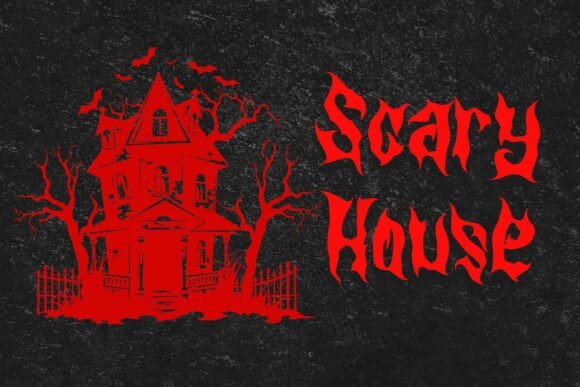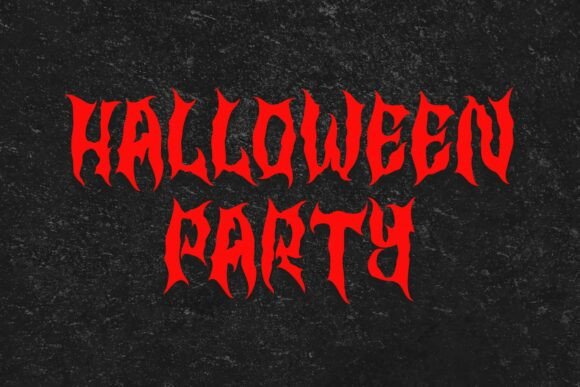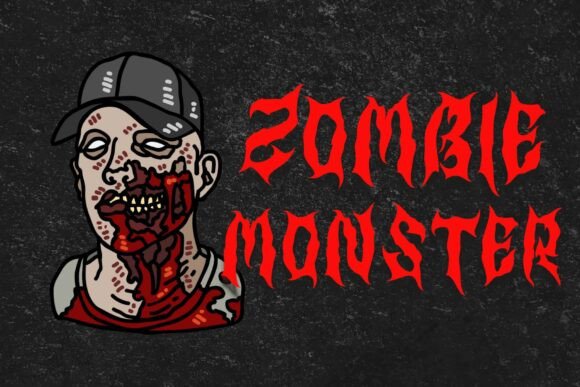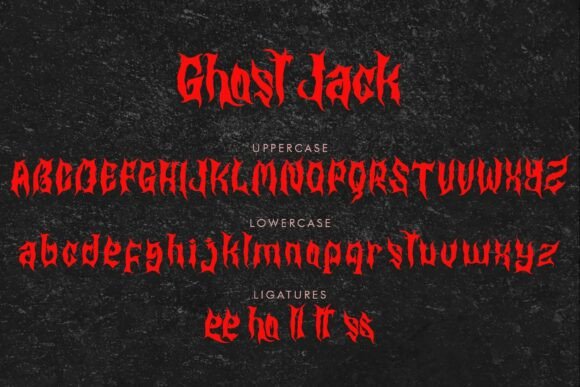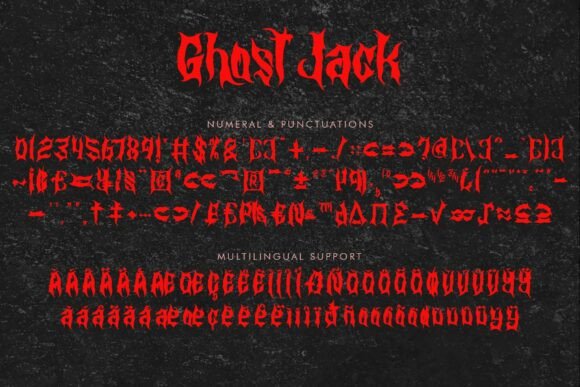
Unleash the Spook: Exploring the Ghost Jack Font for Creepy Creations
Are you on the hunt for a font that screams Halloween, horror, and mystery? Look no further than the Ghost Jack Font, a spine-tingling typeface that’s perfect for sending shivers down the spines of your audience. In this article, we’ll dive into the eerie elegance of Ghost Jack, exploring its features, uses, and why it’s a must-have for designers and crafters alike.
What is Ghost Jack Font?
Ghost Jack is a unique horror display font designed to cast a spell on your viewers. This creepy typeface boasts an extensive range of characters, including:
- Uppercase and lowercase letters
- Ligatures
- Numerals
- Punctuation marks
- Multilingual support
With its vast character set, Ghost Jack offers endless possibilities for creative expression, making it an ideal choice for various design projects.
Features of Ghost Jack Font
So, what makes Ghost Jack stand out from the crowd? Here are some of its notable features:
- Horror-themed design: Ghost Jack’s eerie and mysterious design is perfect for creating spooky and suspenseful content.
- Versatility: This font is suitable for a wide range of projects, from Halloween-themed designs to horror movie posters, Christmas decorations, and more.
- Multilingual support: With support for multiple languages, Ghost Jack is an excellent choice for global design projects.
- High-quality: This font is crafted with precision, ensuring crisp and clear rendering, even at large sizes.
Uses of Ghost Jack Font
Ghost Jack’s versatility knows no bounds. Here are some ideas to get you started:
- Halloween designs: Create spooky invitations, party decorations, and trick-or-treat bags with Ghost Jack.
- Horror movie posters: Add a touch of eeriness to your horror movie posters and trailers.
- Christmas decorations: Yes, you read that right! Ghost Jack’s creepy charm can also be used for Christmas designs, adding a dark twist to your holiday decor.
- Banners and posters: Use Ghost Jack to create eye-catching banners and posters for events, promotions, or advertisements.
- Branding and logos: Establish a bold and memorable brand identity with Ghost Jack.
- Stickers and decals: Design creepy stickers and decals for laptops, water bottles, or any other surface.
- Procreate and digital art: Incorporate Ghost Jack into your Procreate artwork for a haunting touch.
- Sublimation designs: Create unique sublimation designs for t-shirts, mugs, and other products.
Why Designers and Crafters Love Ghost Jack Font
So, why do designers and crafters adore Ghost Jack? Here are a few reasons:
- Customization: With its extensive character set and ligatures, Ghost Jack offers endless opportunities for customization.
- Unique style: This font’s creepy charm adds a distinctive touch to any design project.
- Time-saving: With Ghost Jack, you can create professional-looking designs in no time, saving you hours of design work.
In conclusion, Ghost Jack Font is a must-have for designers and crafters seeking to add a touch of horror and mystery to their creations. Its extensive character set, versatility, and high-quality design make it perfect for a wide range of projects. Whether you’re designing for Halloween, horror movies, or simply want to add a creepy twist to your work, Ghost Jack is the perfect choice. So, unleash the spook and get creative with Ghost Jack Font today!